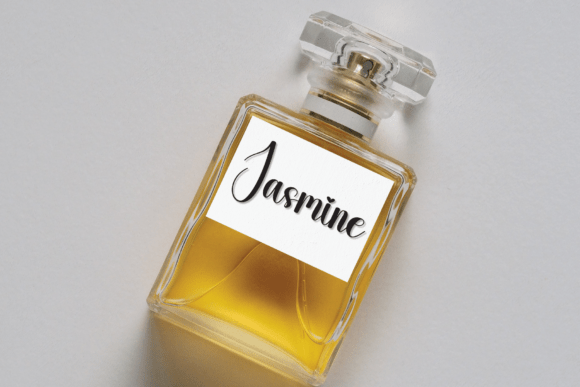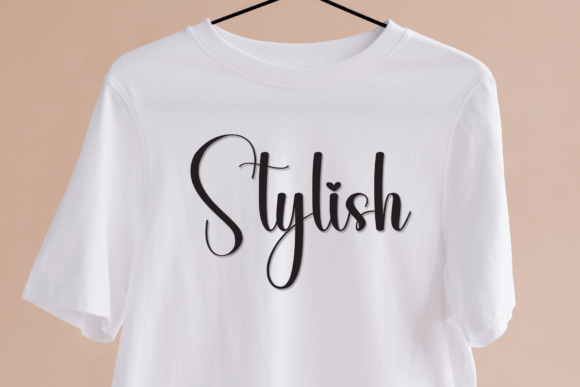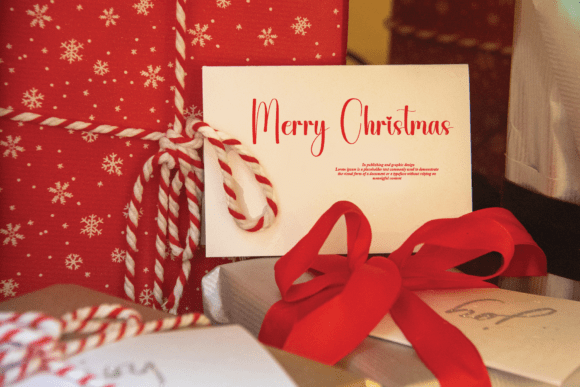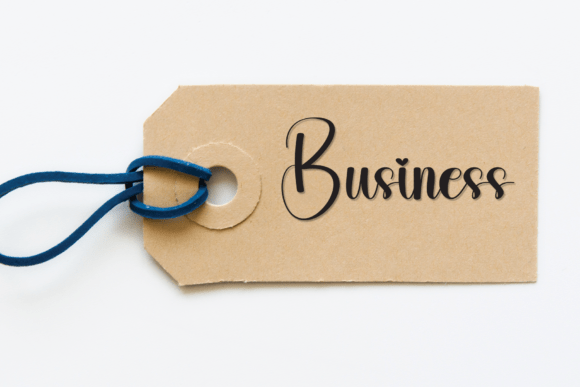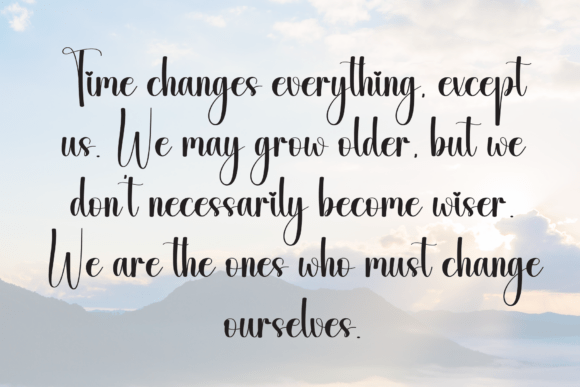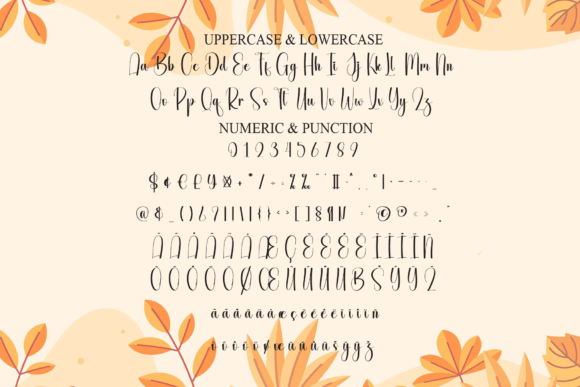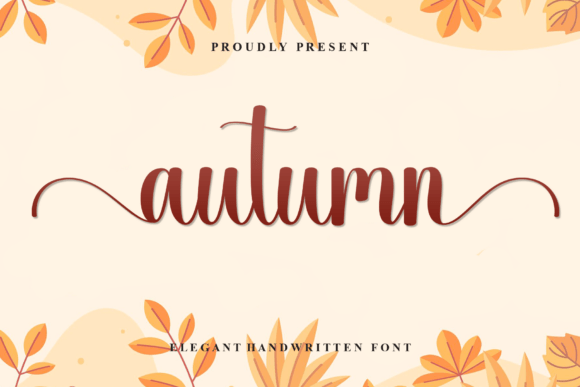
Discover the Charming Serenity of Autumn Font
I’ll never forget the design project that led me to Autumn Font. I was working on a whimsical wedding invitation for a dear friend, and I was struggling to find the perfect font to capture the playful, yet elegant vibe of the occasion. That’s when I stumbled upon Autumn Font, and it was love at first sight! ✨
Indulge in the charming serenity of this handwritten display font, brimming with sweet allure and friendliness. Subtly cute and irresistibly fun, the uniqueness of Autumn Font enhances wedding invitations, cards, and a myriad of designs, infusing them with an inviting, whimsical touch.
• ✨ Unique and playful character set, perfect for creative projects
• ✅ Easy to read and understand, even in smaller font sizes
• 💕 Beautifully crafted to add a touch of whimsy and fun to designs
• 🎉 Subtle variations in letterforms create a sense of movement and energy
While Autumn Font is an amazing addition to any design project, there are a few things to keep in mind: 🤔
• ⚠️ Some letters may appear a bit irregular or imperfect, but that’s part of its charm!
• ⚠️ Not suitable for body text or long-form content, as it’s best used for display purposes
The Designer Inspiration Behind Autumn Font
Autumn Font was inspired by the warm, cozy feelings of the autumn season. The designer wanted to create a font that captured the essence of creativity and playfulness, while still being elegant and sophisticated. The result is a font that’s perfect for designers, crafters, and creative hobbyists who want to add a touch of whimsy to their projects.
Q: What type of projects is Autumn Font best suited for?
A: Autumn Font is perfect for creative projects, such as wedding invitations, cards, and other designs that require a touch of whimsy and fun.
Q: Is Autumn Font suitable for body text or long-form content?
A: No, Autumn Font is best used for display purposes, such as headings and titles, and is not suitable for body text or long-form content.